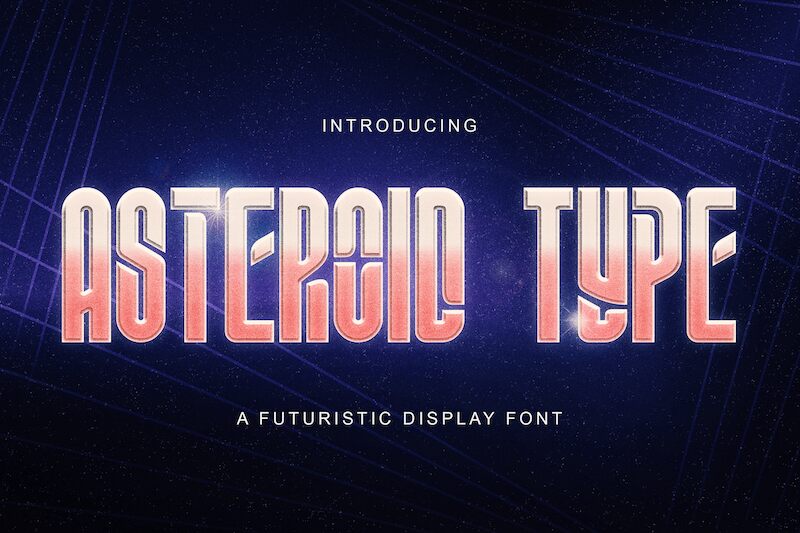
ASTEROID TYPE
Asteroid Type font, crafted by StringLabs Creative Studio, is a striking display typeface with a distinctly futuristic flair. Its condensed form and sleek design make it an ideal choice for modern branding, technology projects, and sci-fi themes. This free font's bold presence captures attention effortlessly, enhancing visual communication with its unique aesthetic.
Asteroid Type font excels in delivering head-turning designs that require a touch of the extraordinary. Perfect for titles and headlines, this font elevates any project where innovative style is essential. Download this free font to explore its dynamic potential in various creative endeavors. Whether you're designing logos or promotional materials, Asteroid Type ensures your message stands out with its captivating appeal.